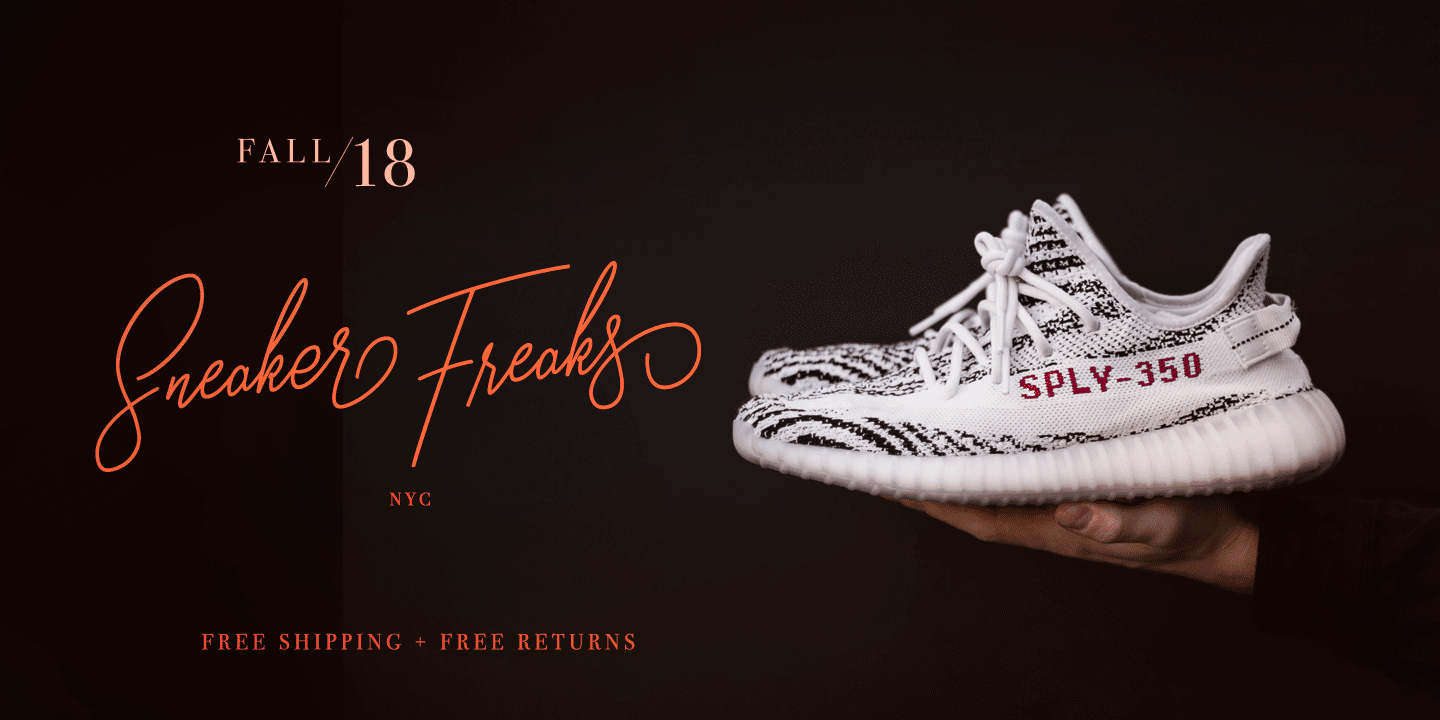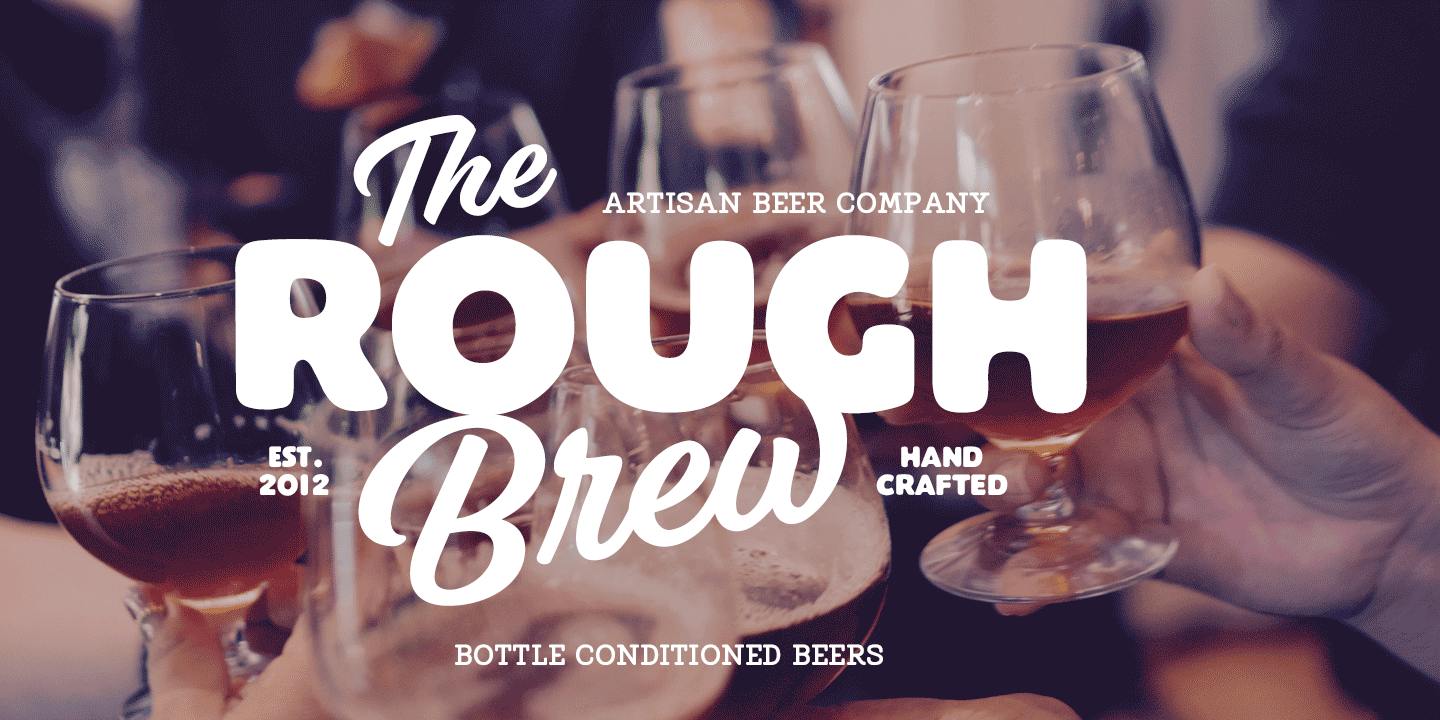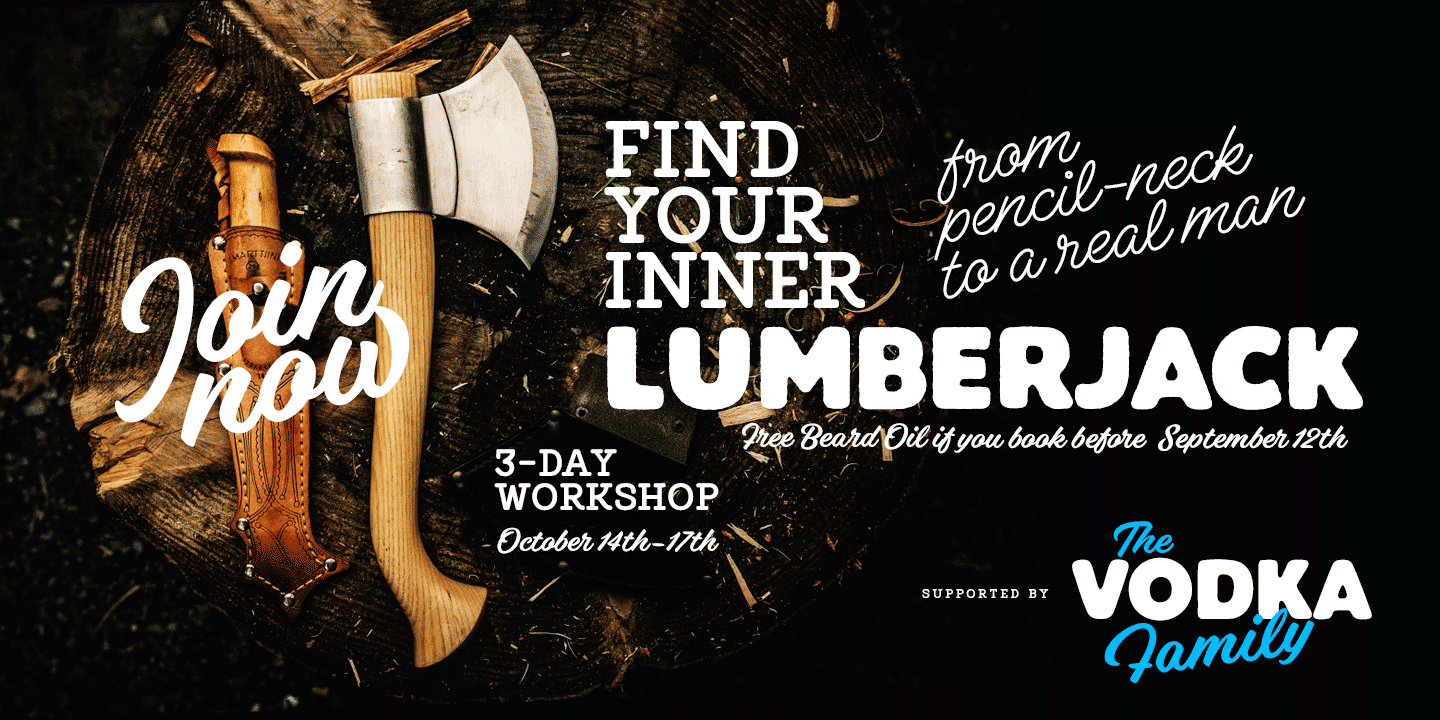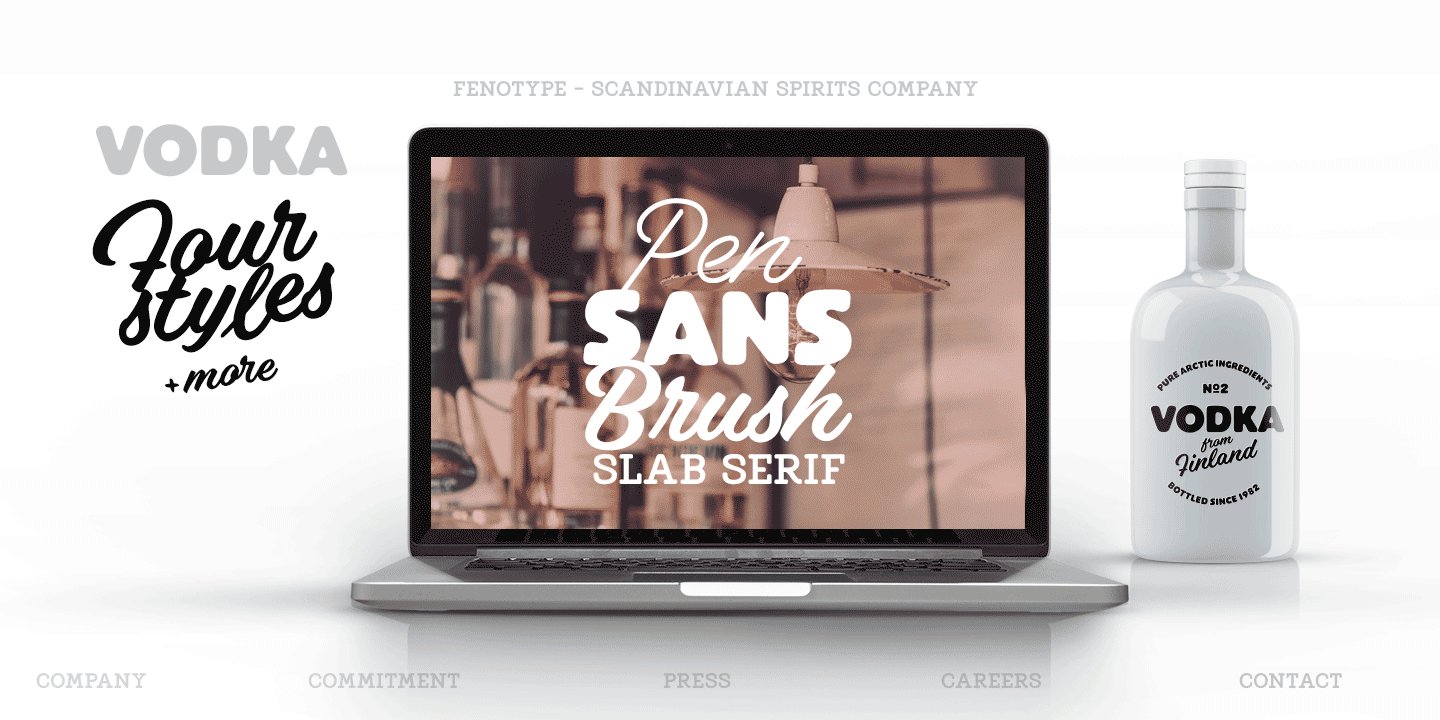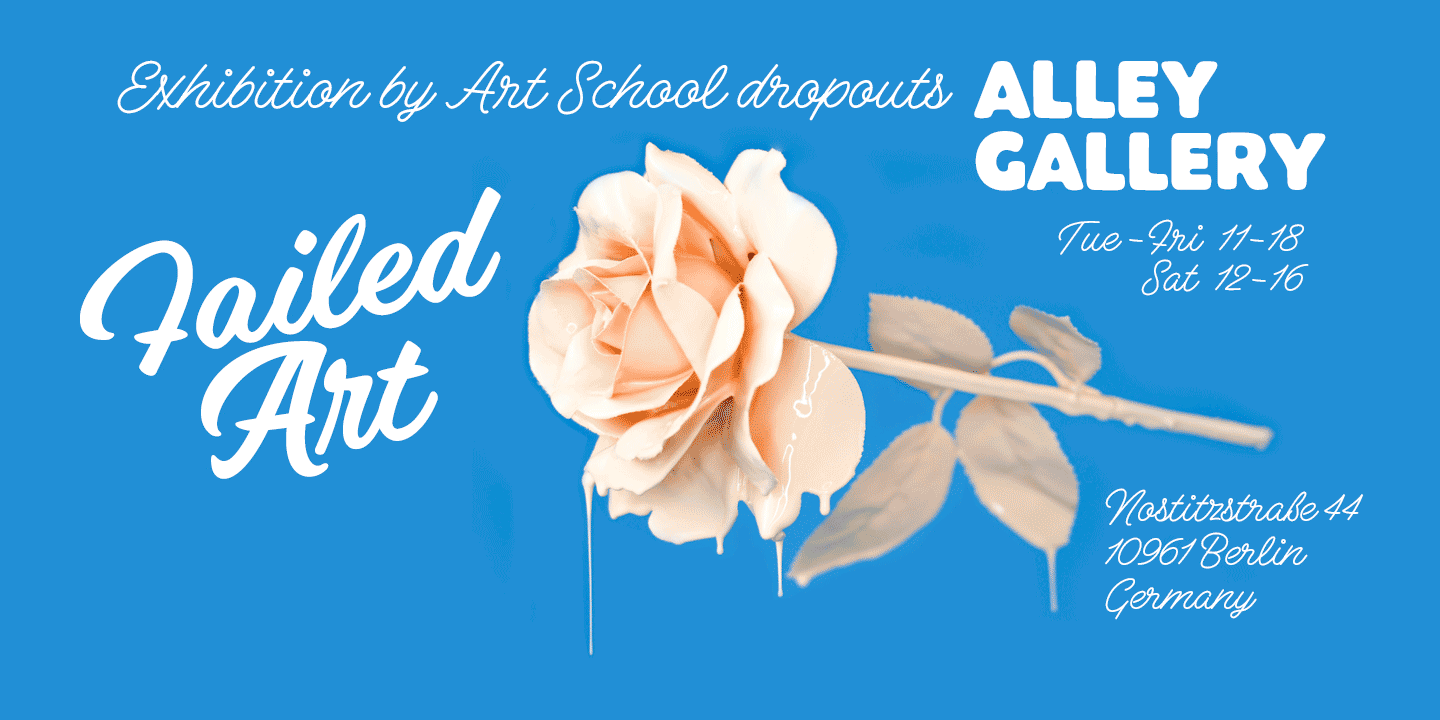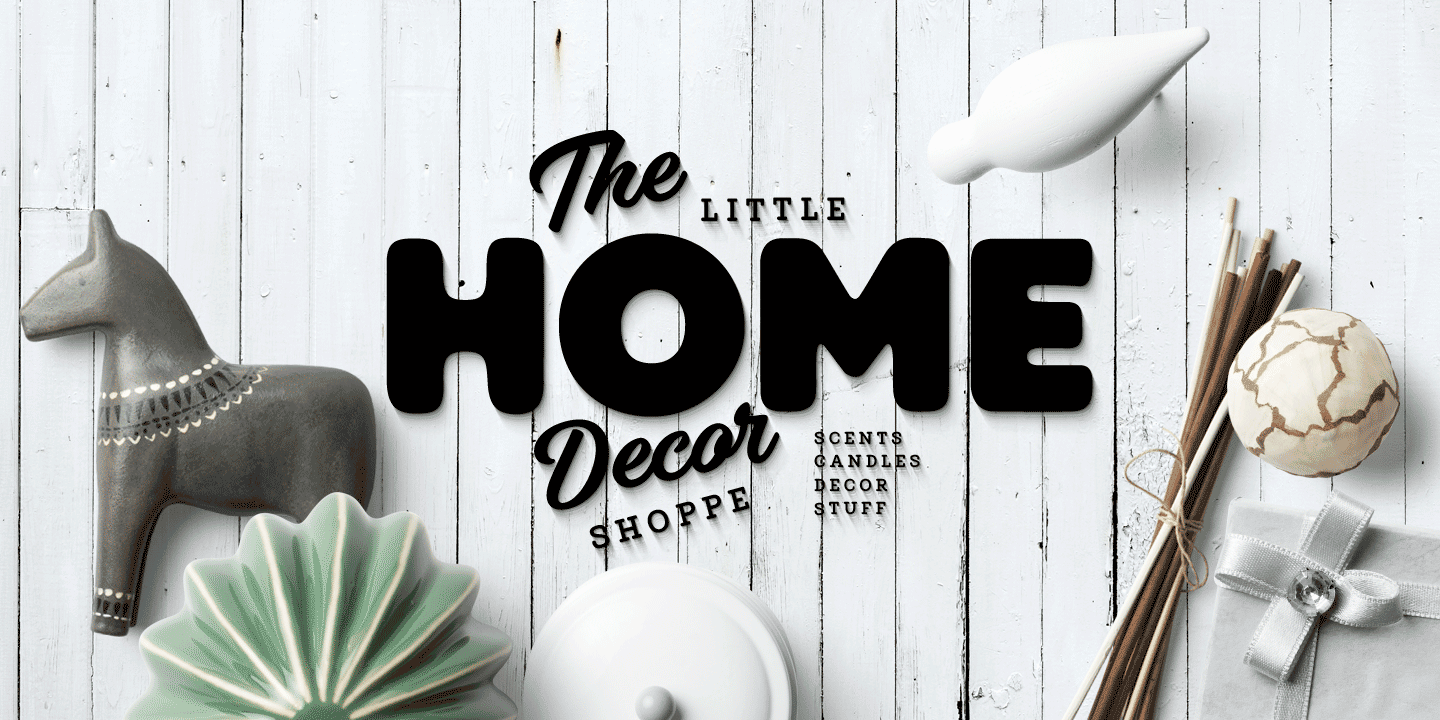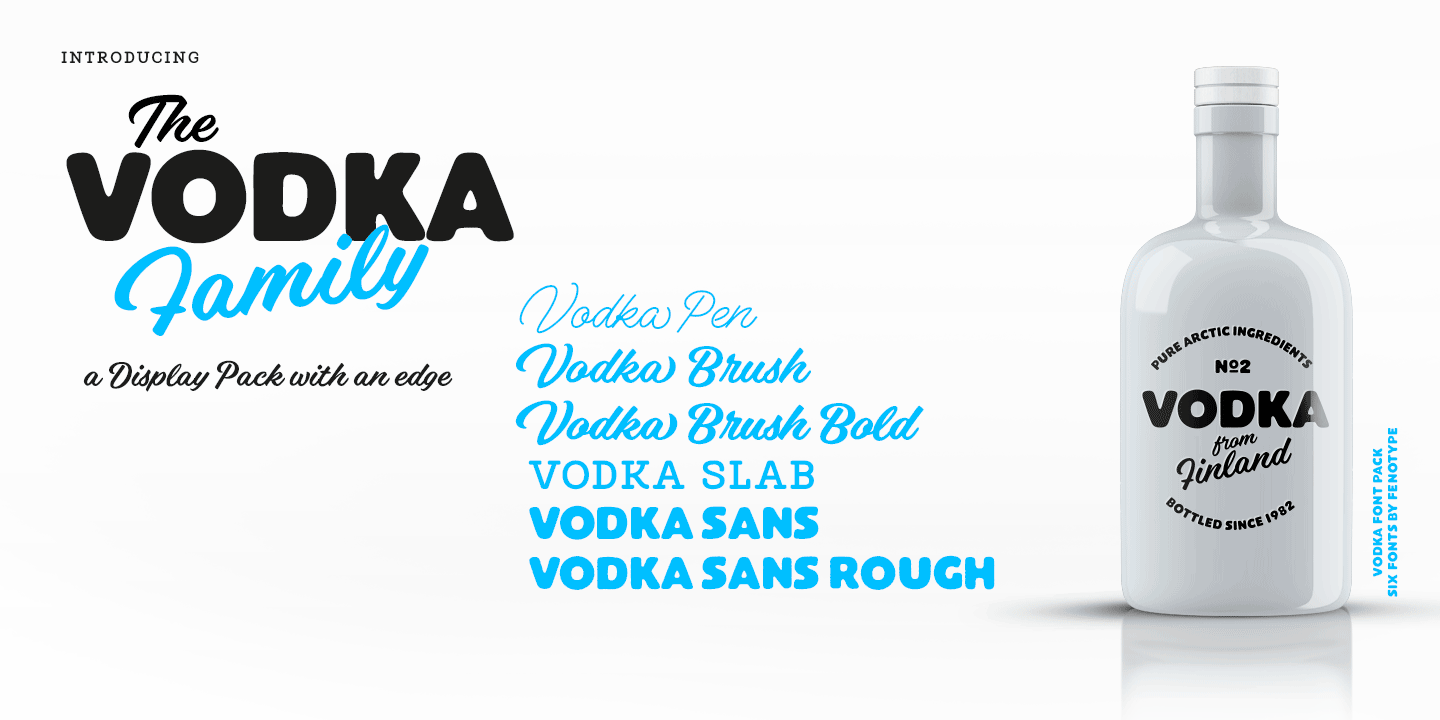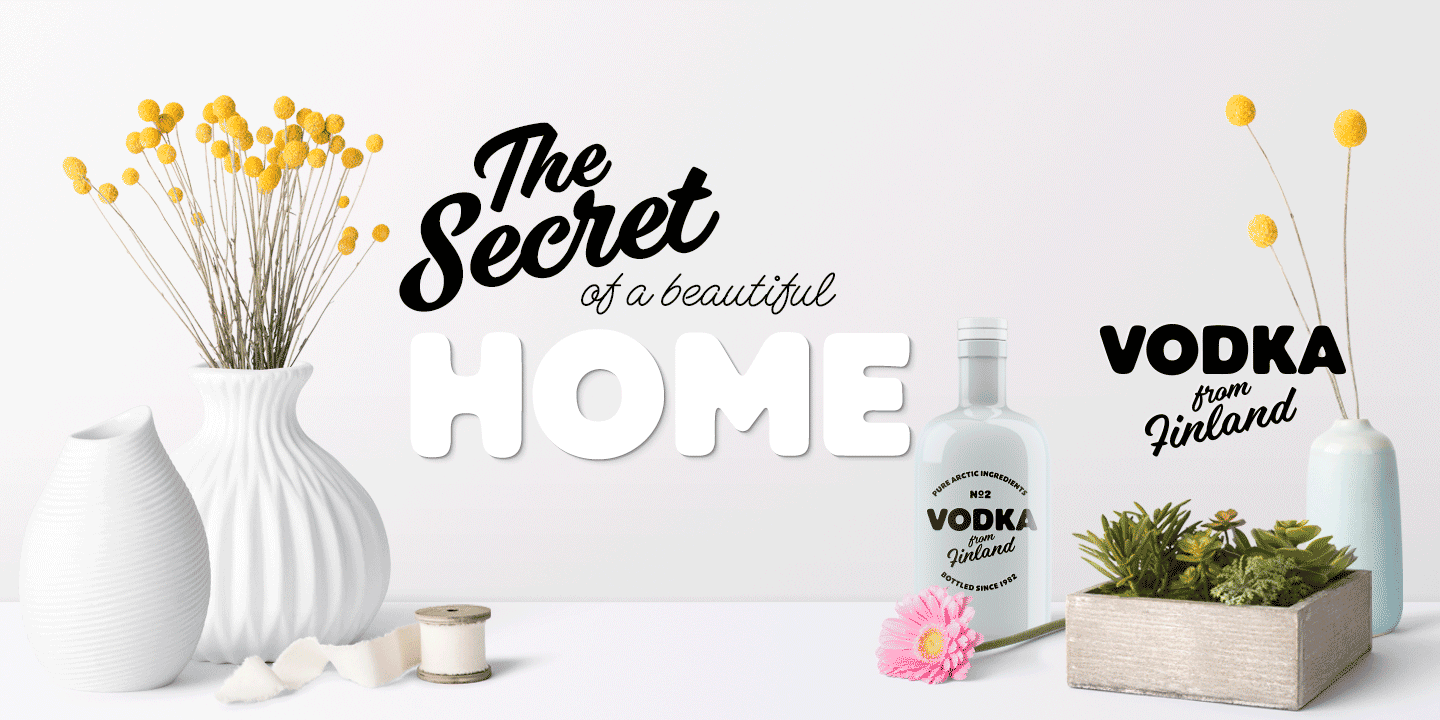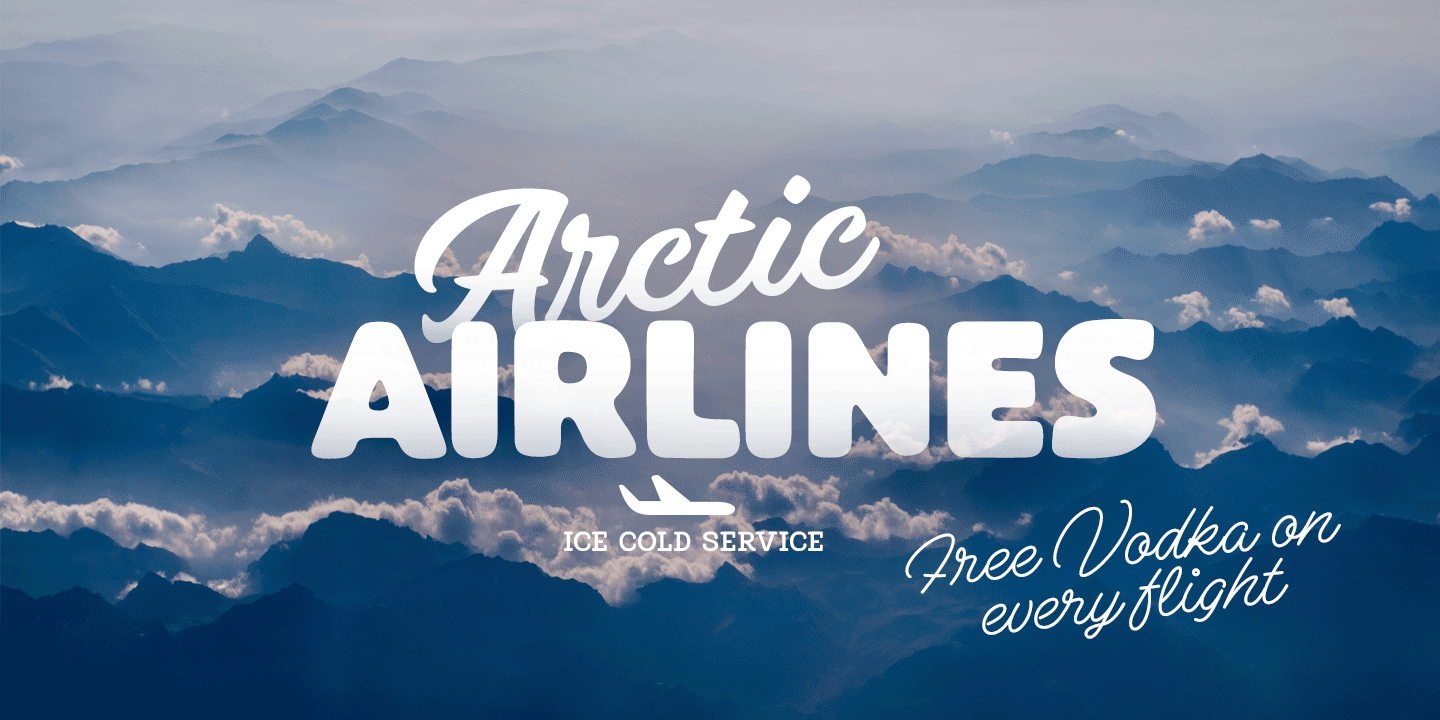
Vodka
Vodka is a display combo pack of four styles and six fonts. Vodka fonts are clean but soft. Vodkas core is two weights of a Brush Script and a Monoline Script with similar characters. Vodka Sans is a bold sans with very soft features. Vodka Sans lowercase letters are a bit condensed version of uppercase. Vodka Slab is a rounded bold display type.
Vodka Brush and Pen are equipped with automatic Contextual Alternates and Standard Ligatures that help to keep the flow smooth. For more expressive letters there's Swash Alternates for every standard letter.
Vodka fonts are designed to play together but can easily be used as themselves too.